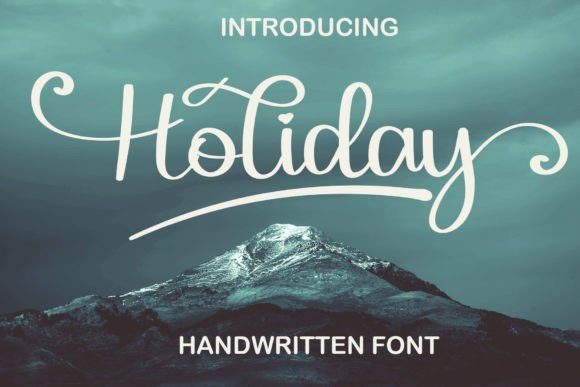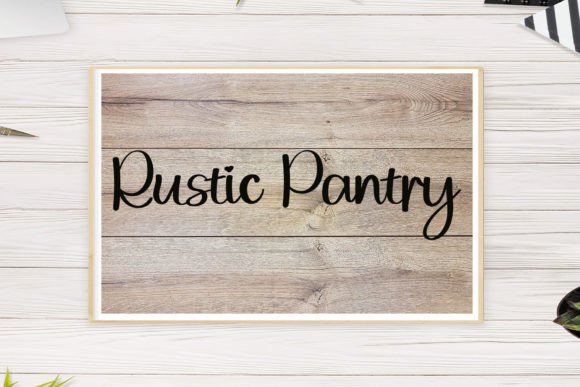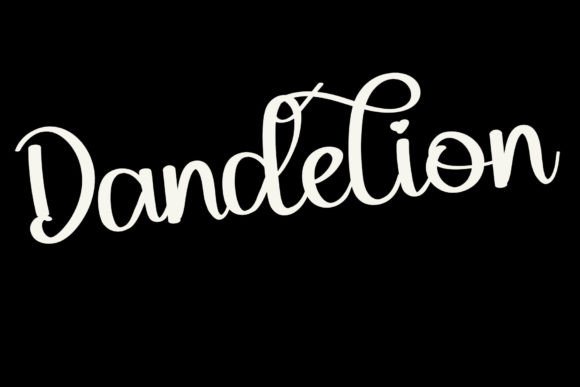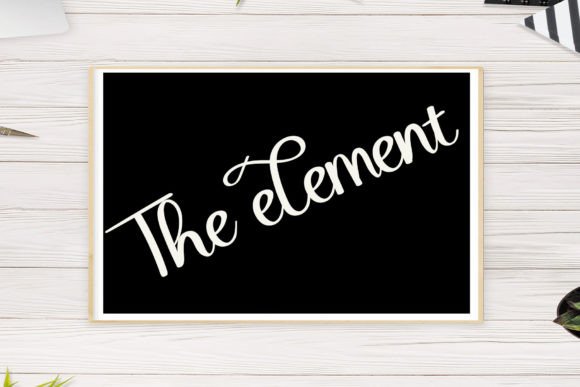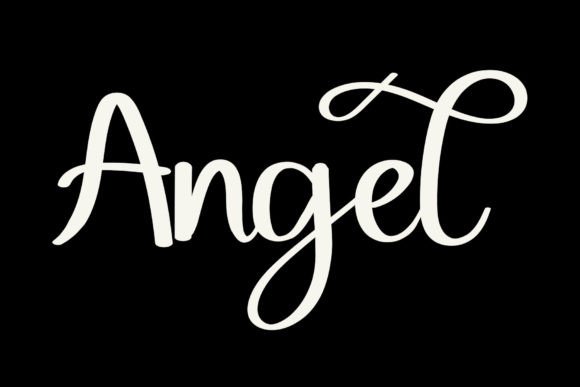
Holiday Font
About Holiday Font
“Holiday” is a delicately crafted handwritten font designed to bring a cool and unique touch to your designs. With meticulous attention to detail, this font is versatile and can be used for a range of purposes such as writing letters, creating invitations, labeling food products, crafting titles, and more.
The delicate nature of “Holiday” makes it a standout choice for projects that require a touch of elegance and sophistication. The handwritten style adds a personal and authentic feel to your text, making it suitable for conveying warmth and individuality in your designs.
Whether you’re creating holiday-themed materials, crafting invitations for special occasions, or designing labels for food products, “Holiday” adapts seamlessly to different contexts. Its versatility allows it to bring a unique flair to various design applications, making it a valuable asset in your creative toolkit.
The careful craftsmanship of “Holiday” ensures that each letter is thoughtfully designed, contributing to an overall aesthetic that is both cool and distinctive. Its use can enhance the visual appeal of your projects, giving them a personalized and artistic touch.
In summary, “Holiday” is not just a font; it’s a delicately crafted design tool that adds a cool and unique vibe to your creative endeavors. Whether you’re writing letters, creating invitations, labeling food products, or designing titles, “Holiday” is a font that brings a touch of elegance and individuality to your projects.